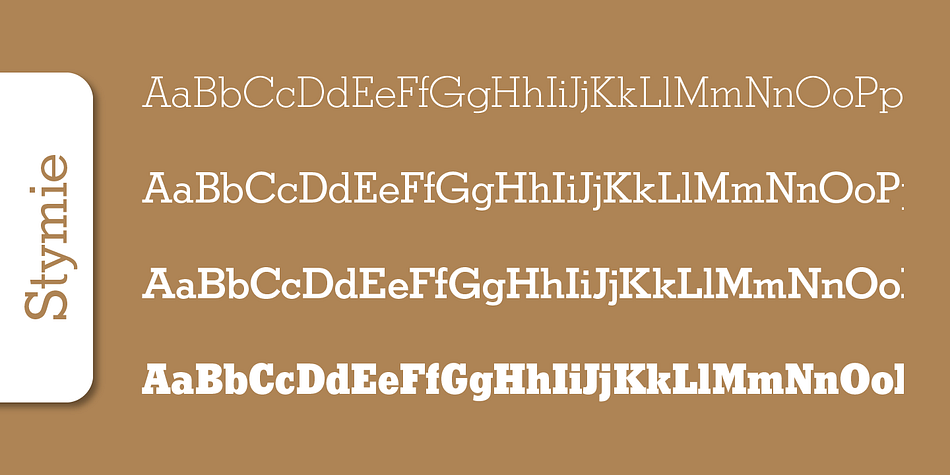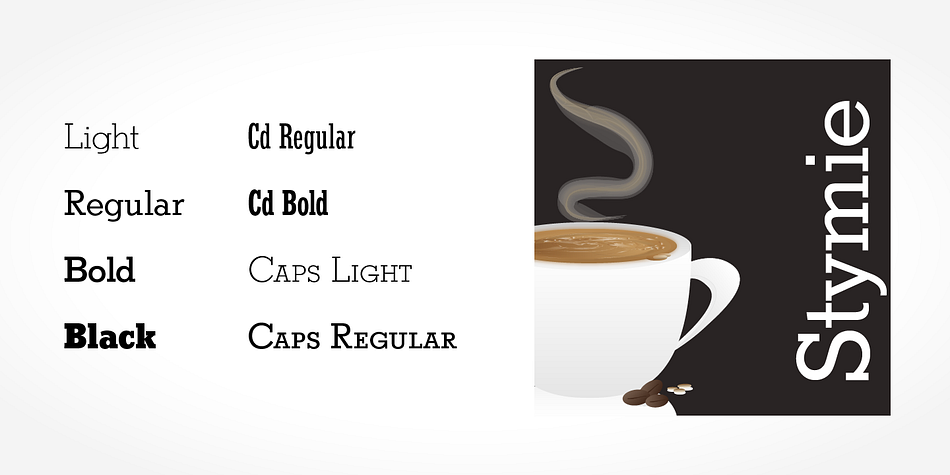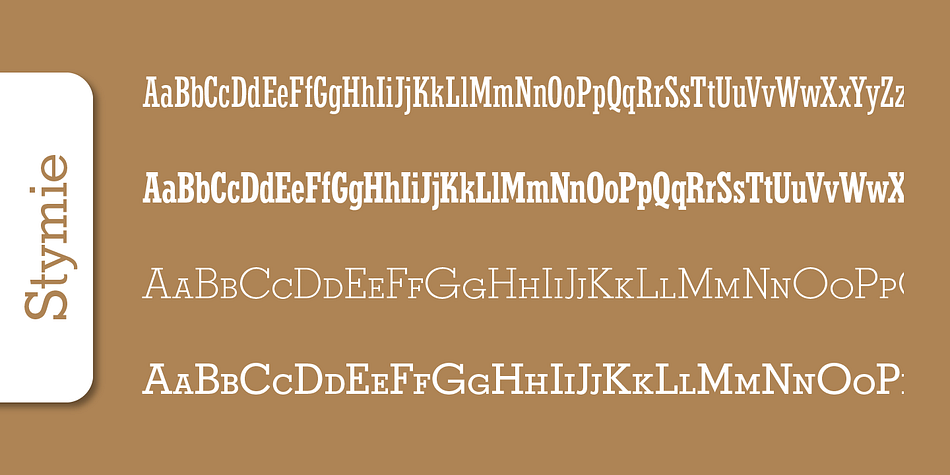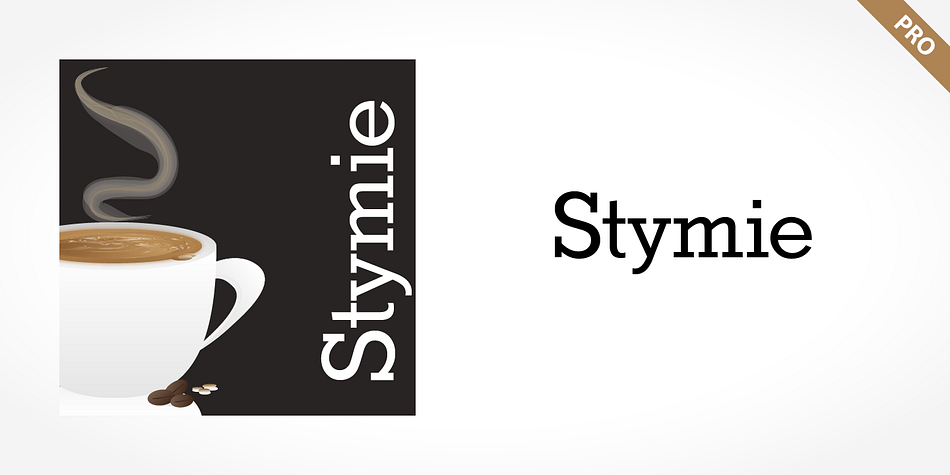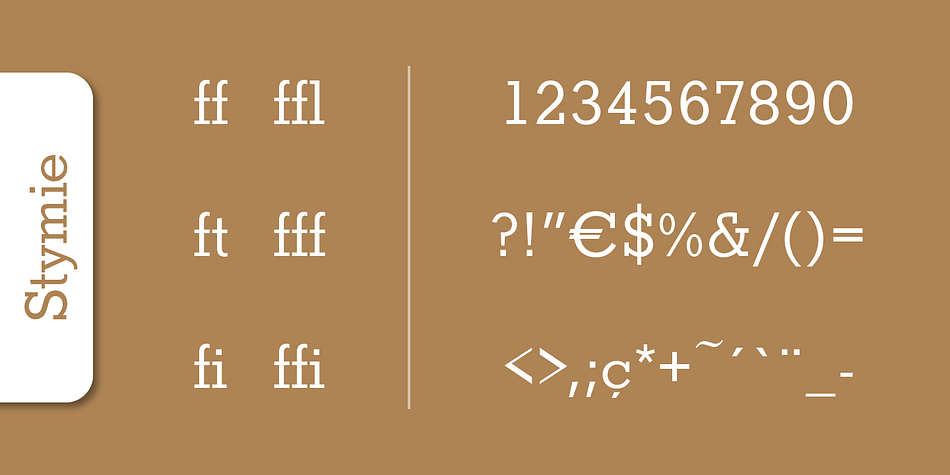
Stymie Pro
Stymie Pro is a slab serif font family. This typeface has eight styles and was published by SoftMaker.
Stymie is a reworking of slab serif types that were popular in Europe at that time, like Memphis or Beton. For the past 150 years, slab serif types (sometimes called Egyptian or Egyptienne-style faces) have been a popular choice for headline text in newspapers, magazines, and advertising.